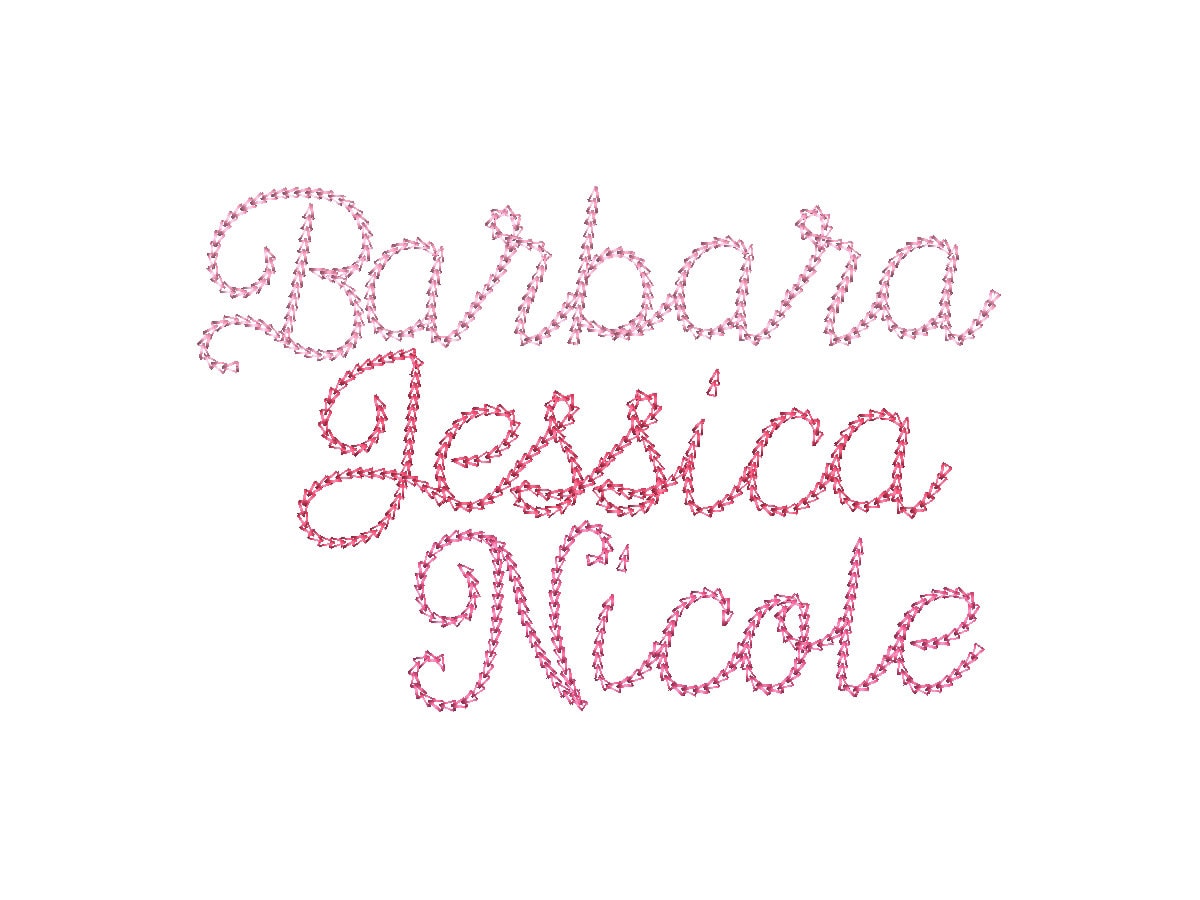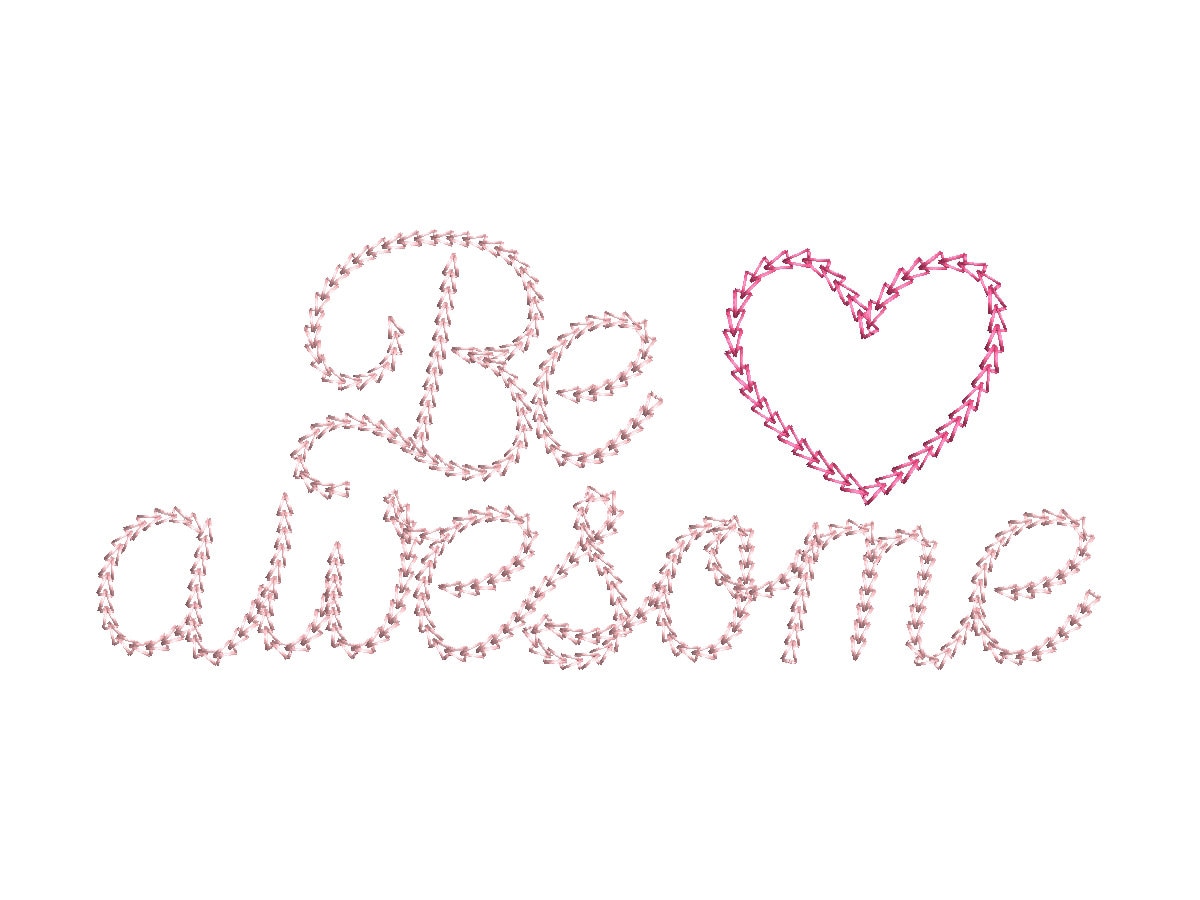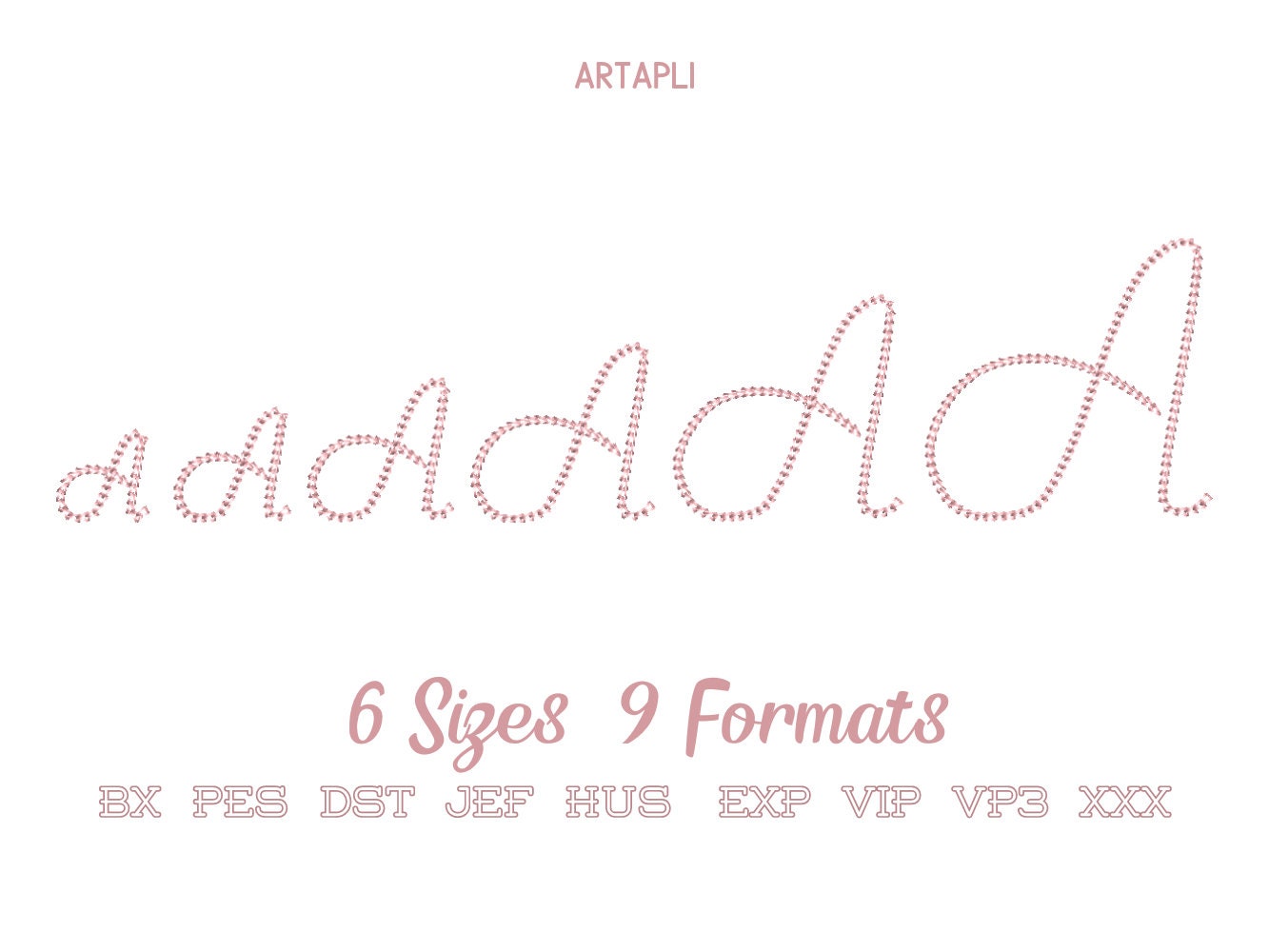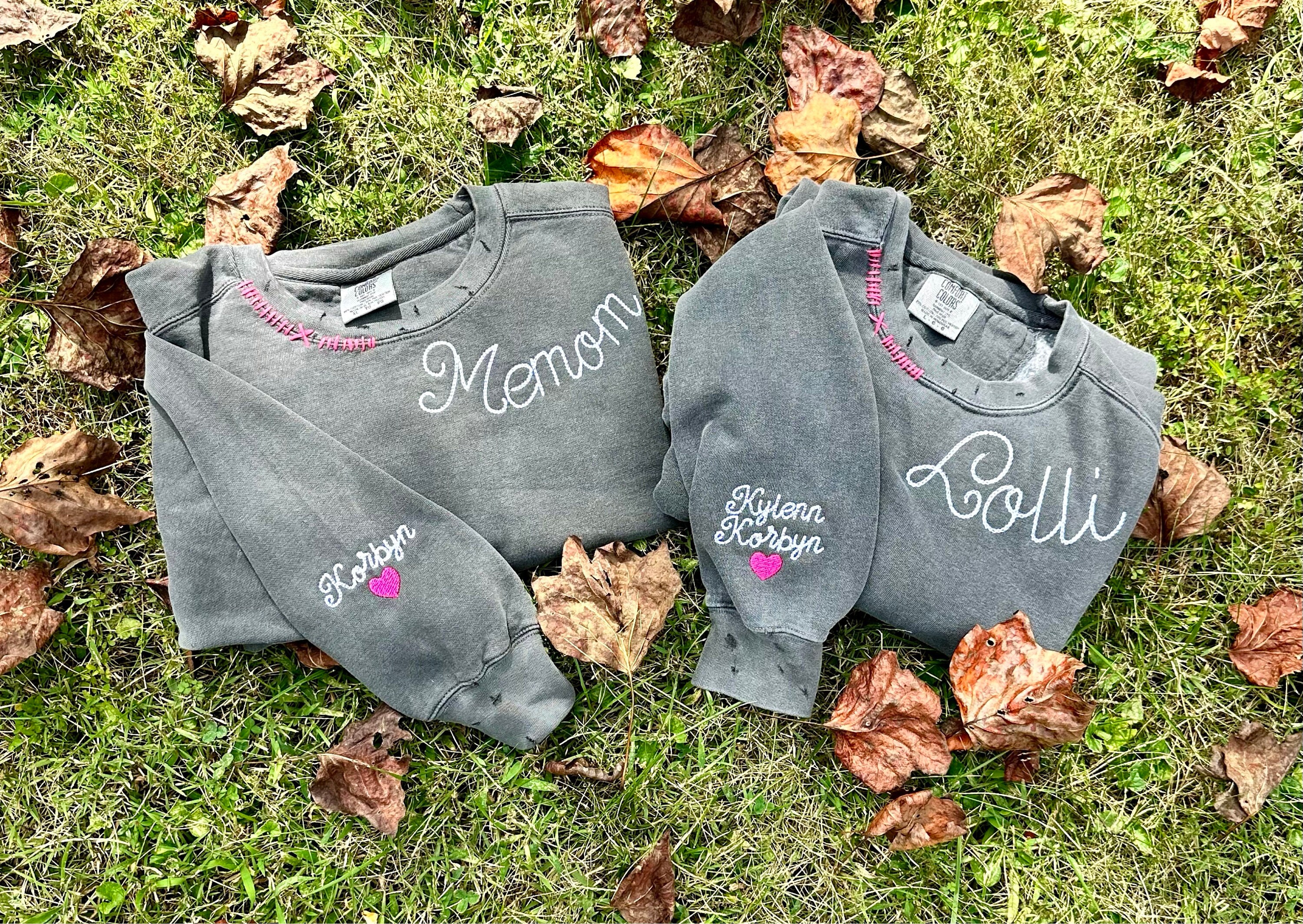
Swirl Chain FONT quick light stitch machine embroidery designs assorted sizes chain stitch alphabet letters kids name monogram, BX included
Whole alphabet A-Z uppercase and lowercase letters, numbers 0-9 and punctuation.